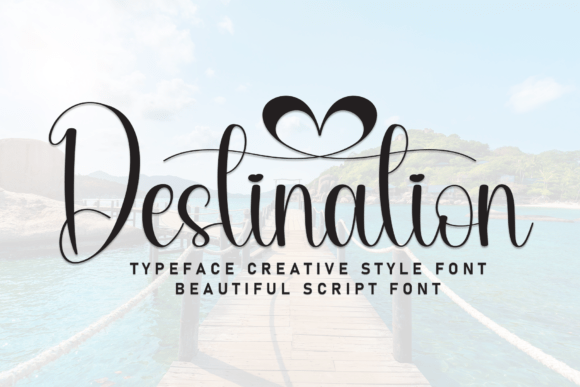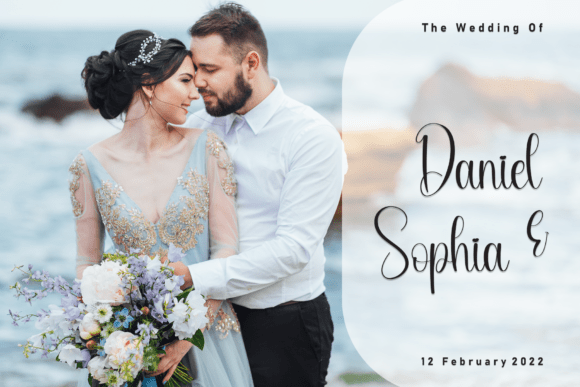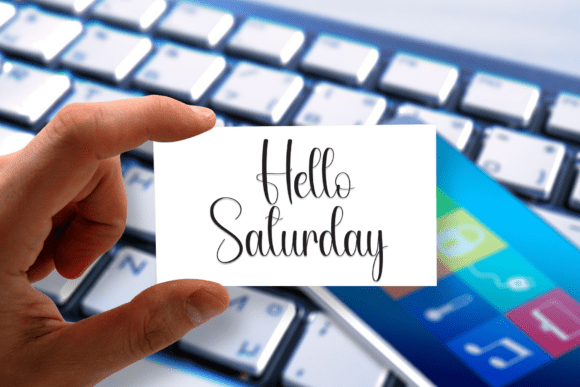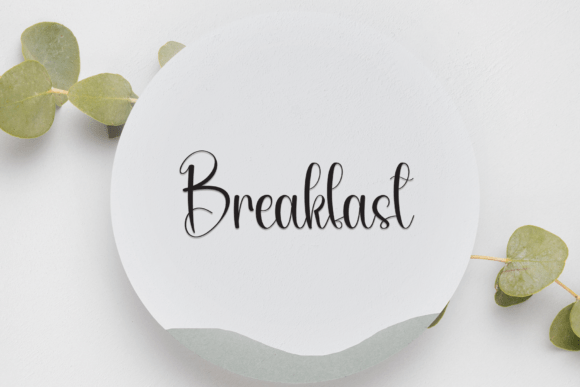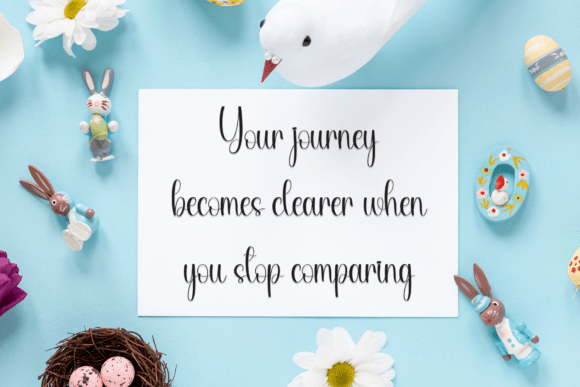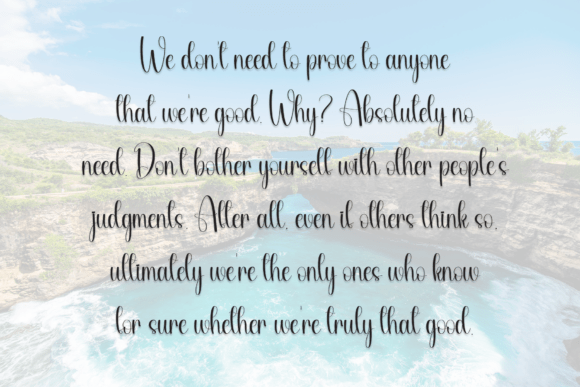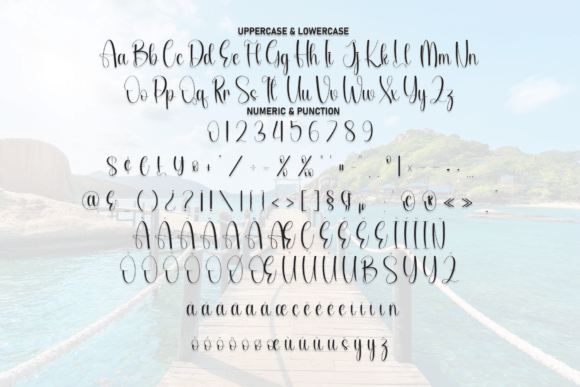
Unlock the Charm of Handwritten Elegance
Remember that moment when you stumbled upon the perfect font for a special project? The excitement, the thrill of bringing your design to life, and the sense of accomplishment when everything falls into place? That’s exactly what we’re about to explore with the enchanting Destination Font.
This meticulously crafted handwritten display font is designed to evoke a sense of charm and magnetism, making it perfect for intimate wedding invitations, affectionate greeting cards, or any creative endeavor that requires a touch of whimsy. As a designer, you’ll appreciate the versatility and sophistication that Destination Font brings to your design repertoire, allowing you to add a hint of artistic pleasure and polished elegance to your projects.
Key Features of Destination Font
- Unique Characteristics: Features a modern, clean design with subtle flair and flair-free alternatives for precise control over spacing and letterforms.
Destination Font Review
As a designer, I was excited to try out the Destination Font, and I’m happy to share my honest review.
- Unique Design: Destination Font offers a fresh and modern take on traditional font styles. The unique letterforms and geometric shapes make it perfect for designers looking for something new and exciting.
- High-Quality Glyphs: The font is well-crafted, with smooth lines and crisp details. This makes it suitable for both digital and print media.
- Customization Options: Destination Font offers a range of weights and styles, making it easy to find the perfect combination to suit your design needs.
- Limited Language Support: Destination Font is primarily designed for Latin-based languages, which may limit its use for designers working with non-Latin scripts.
- Not Ideal for Small Text: While the font is beautiful at larger sizes, it can become difficult to read at smaller sizes, making it less suitable for body text.
Overall, I’m impressed with the Destination Font’s unique design and high-quality glyphs. However, its limitations in language support and small text readability may make it less versatile for some designers. Despite this, I would recommend it for designers looking for a stylish and modern font for headings, titles, or other display text.